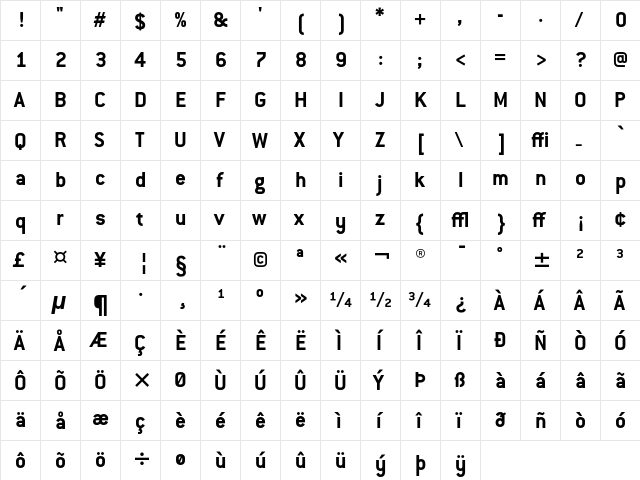
Conduit ITC Bold Font Preview
Design Context for Conduit ITC Typeface
Conduit ITC offers clean, dependable letterforms without strong stylistic allegiance, making it a practical choice for designers who need flexibility. The heavy weight commands attention and anchors typographic hierarchies. The condensed width makes it efficient for tight spaces without sacrificing legibility.